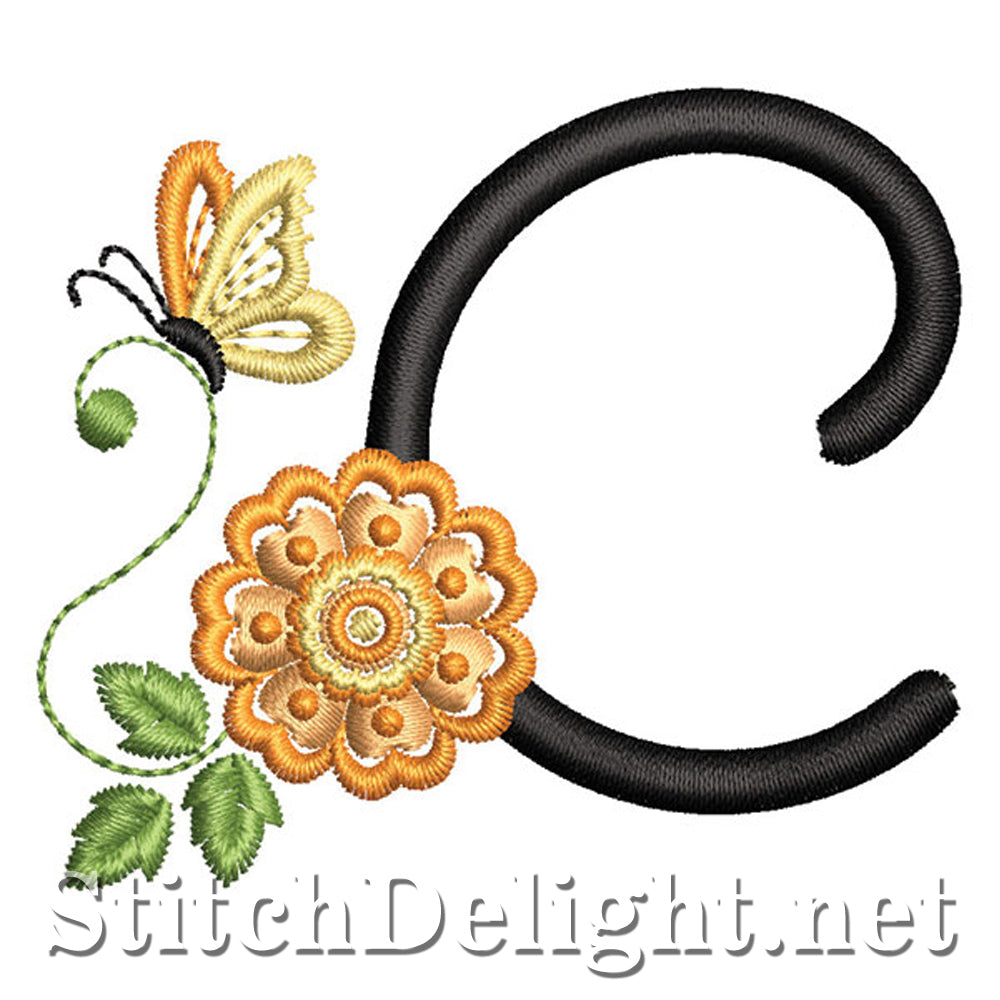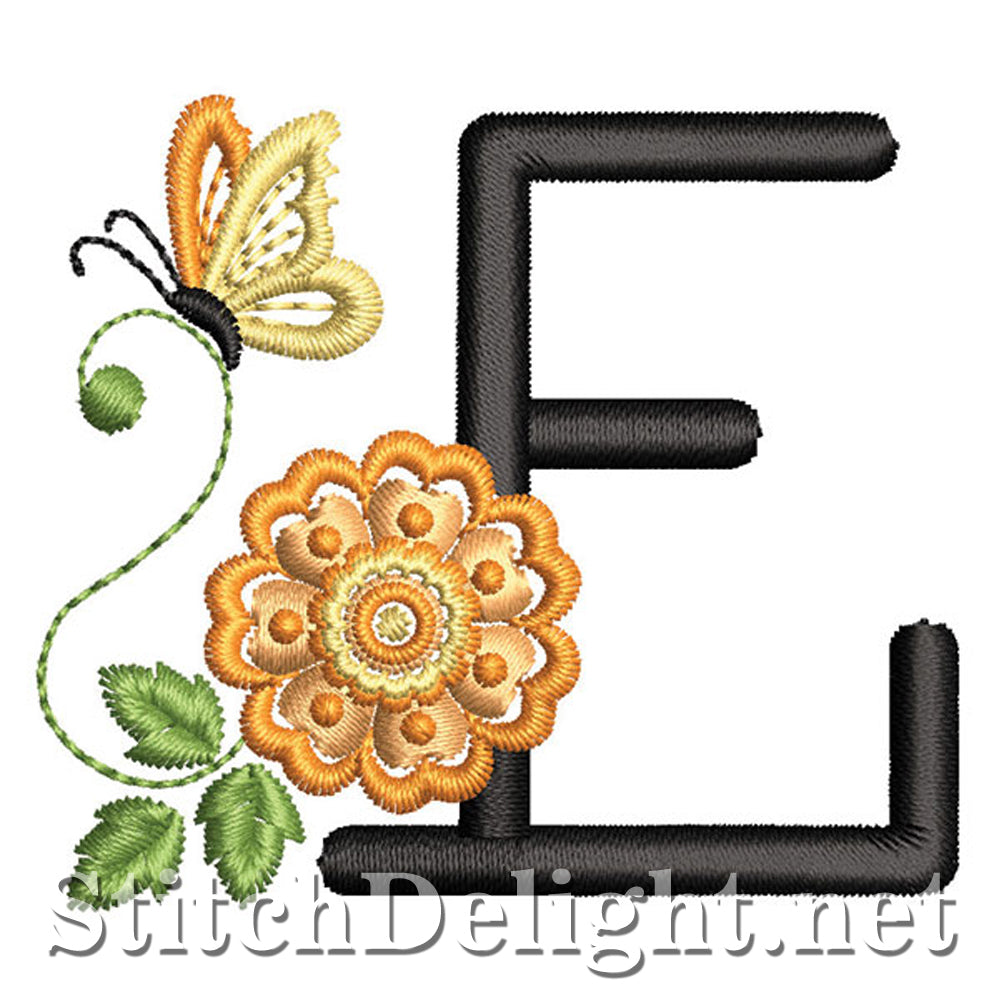
SDS1236 Sunset Bloom Font C
Personalize your project with this stylish monogram set with gorgeous sunset blooms and butterflies- BX version for Embrilliance software included in the FULL font purchase only, not for single letters - Letter height is 2.1 inch / 55mm